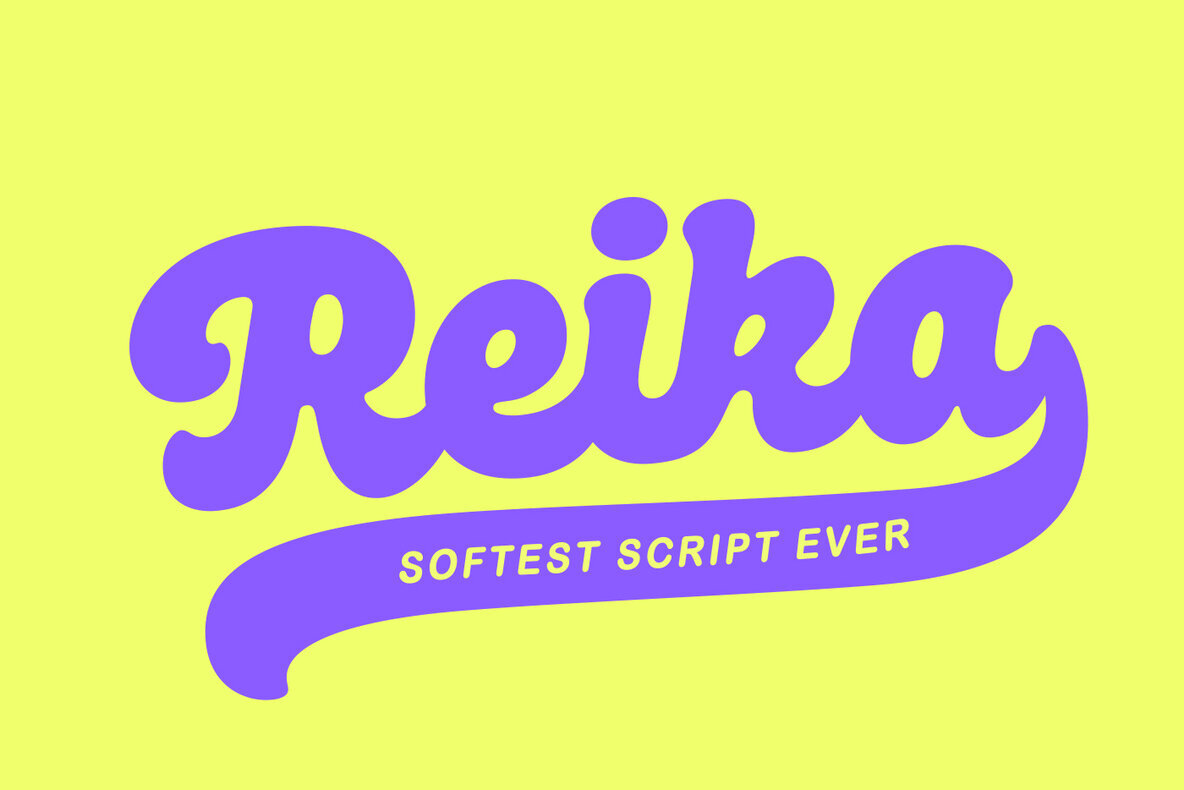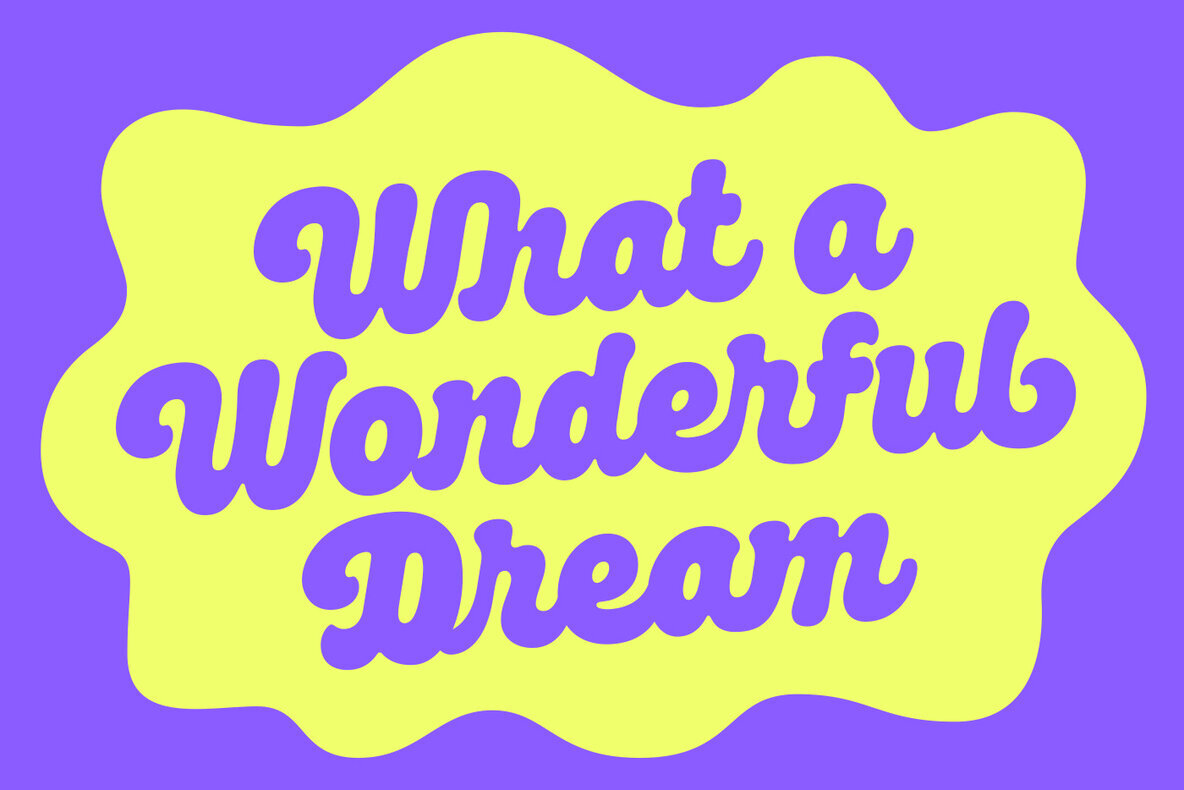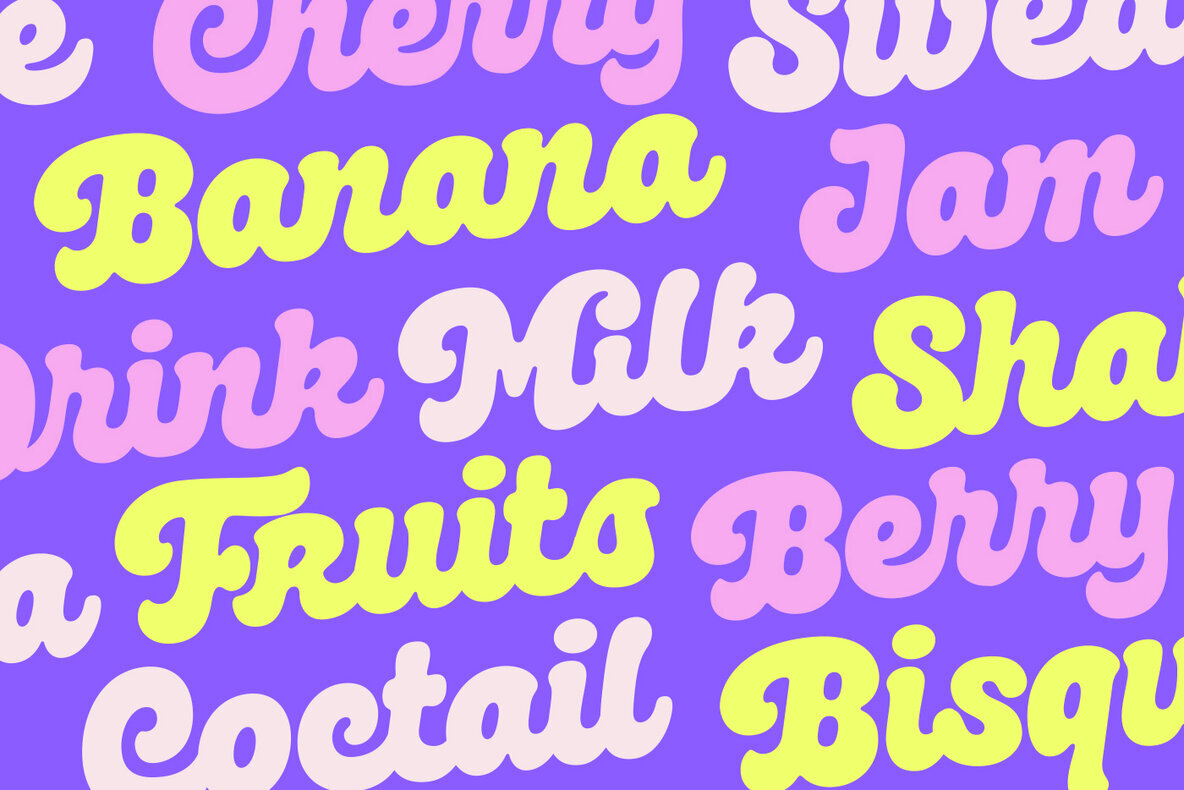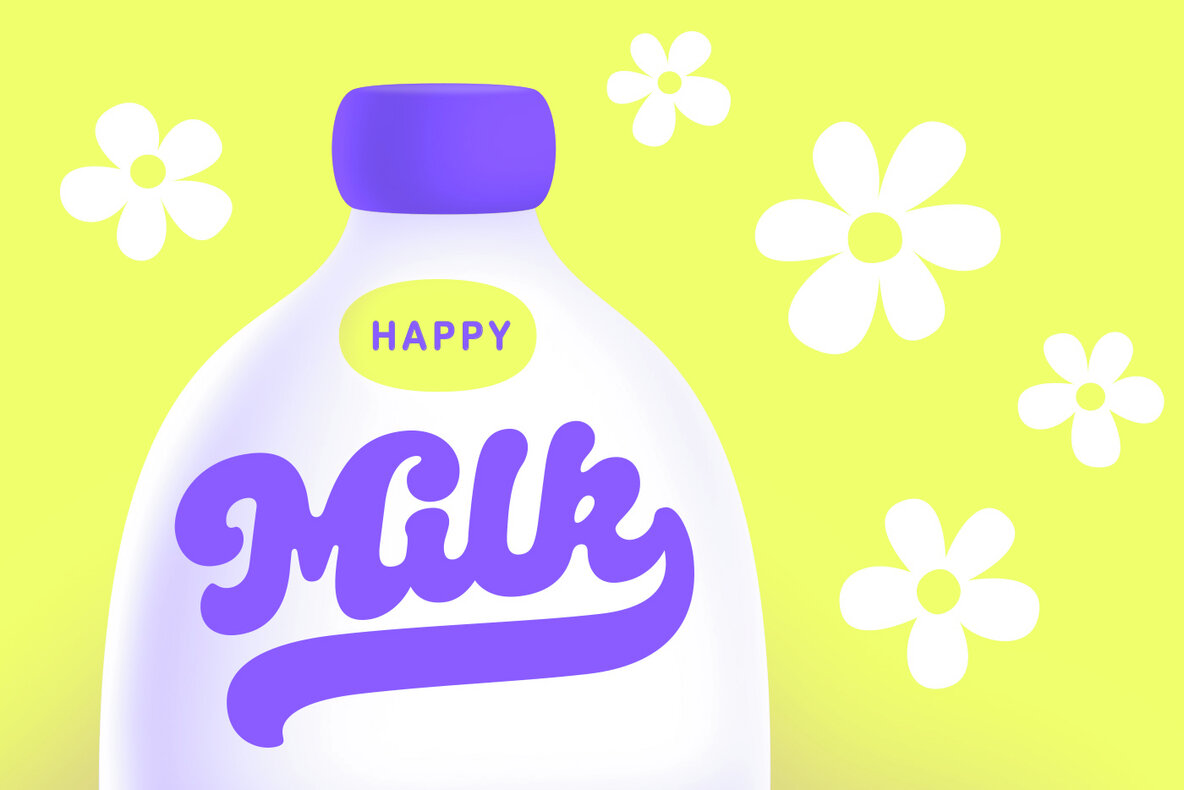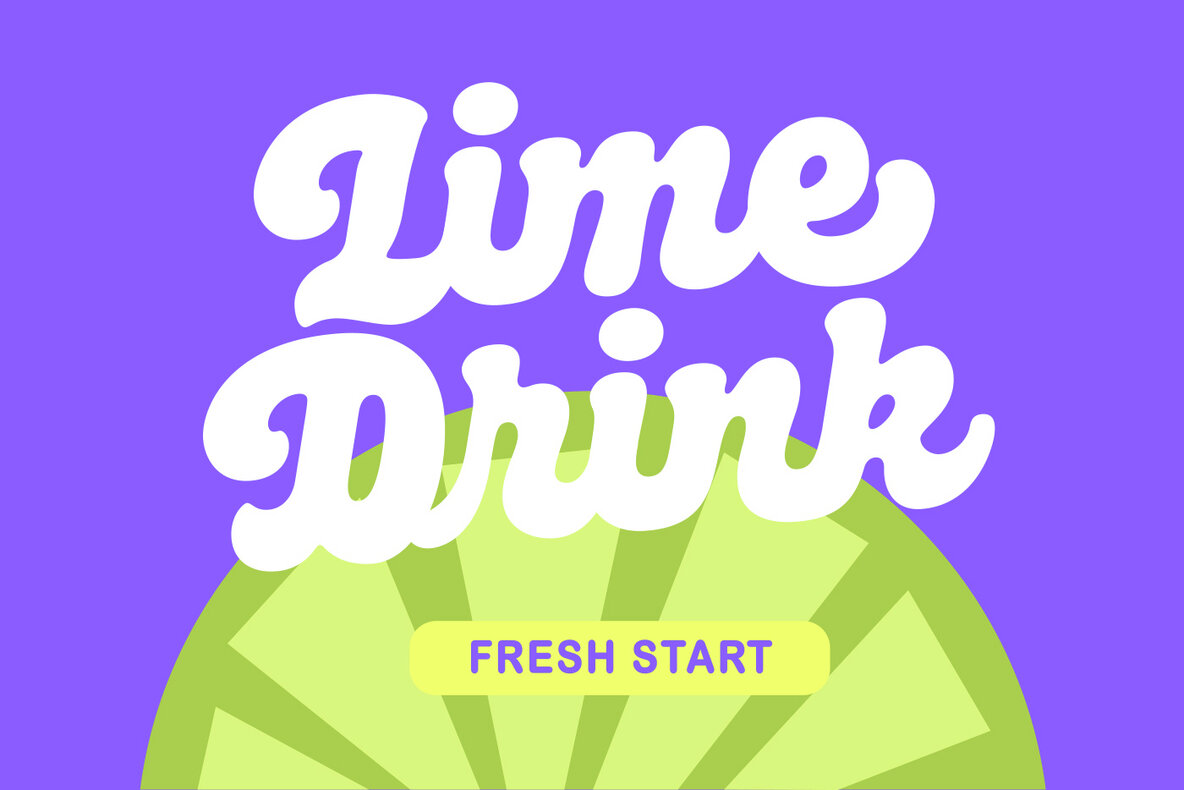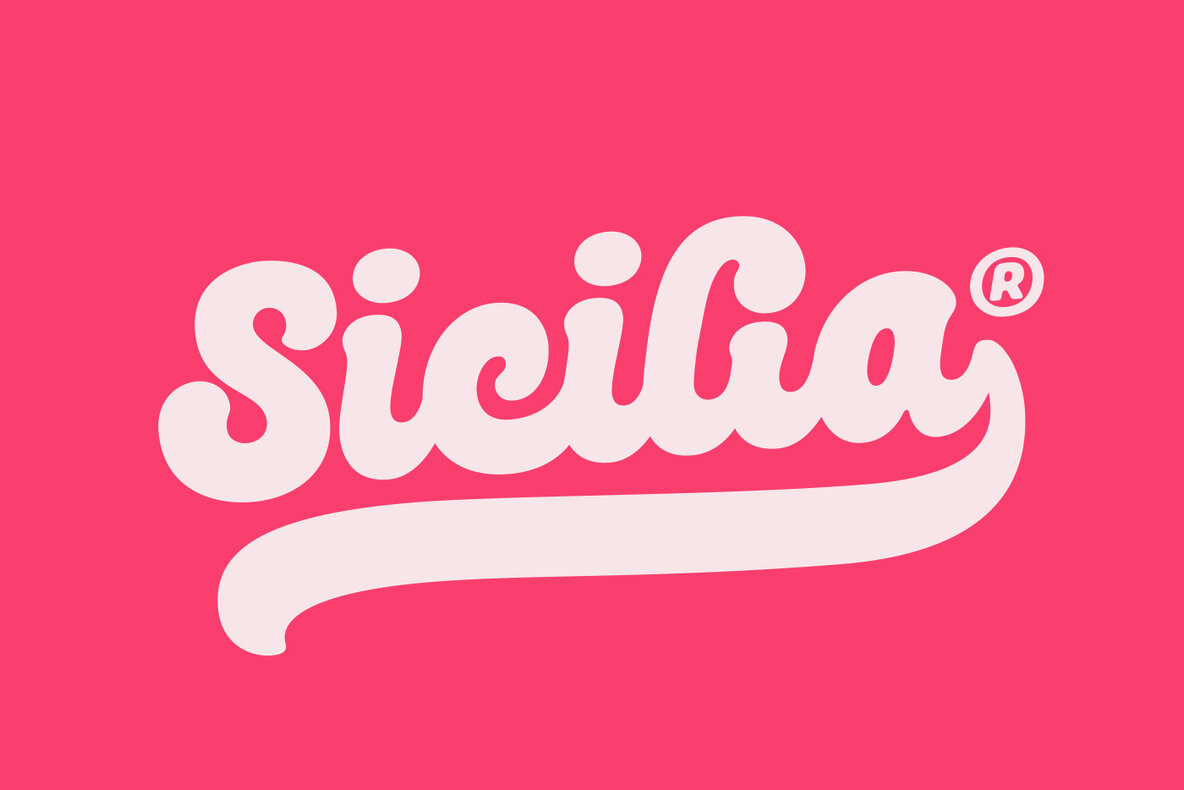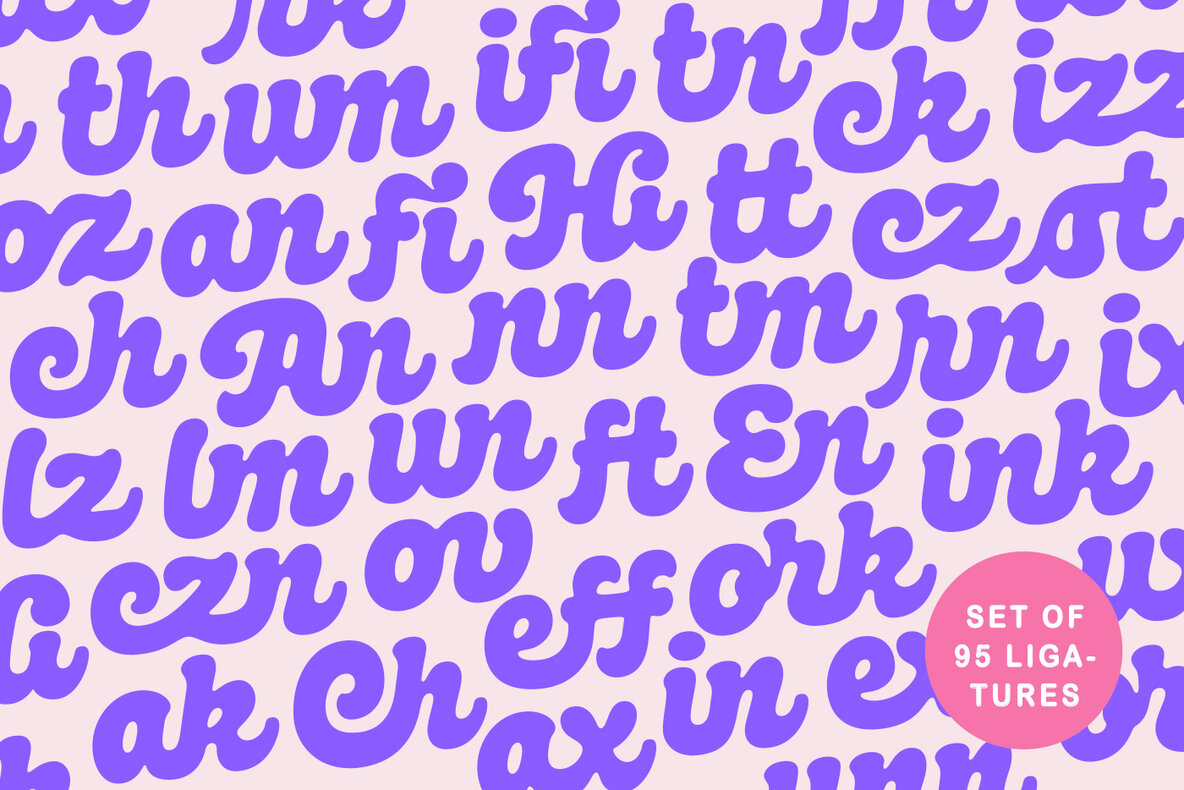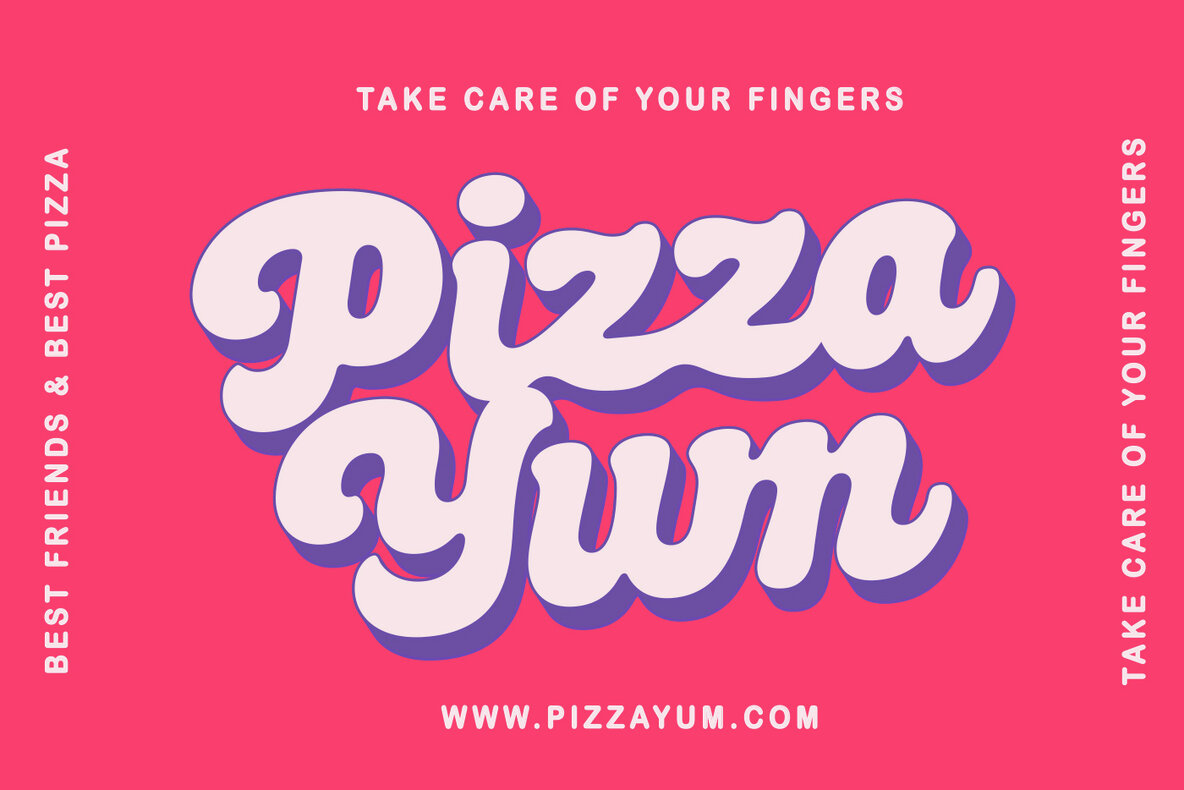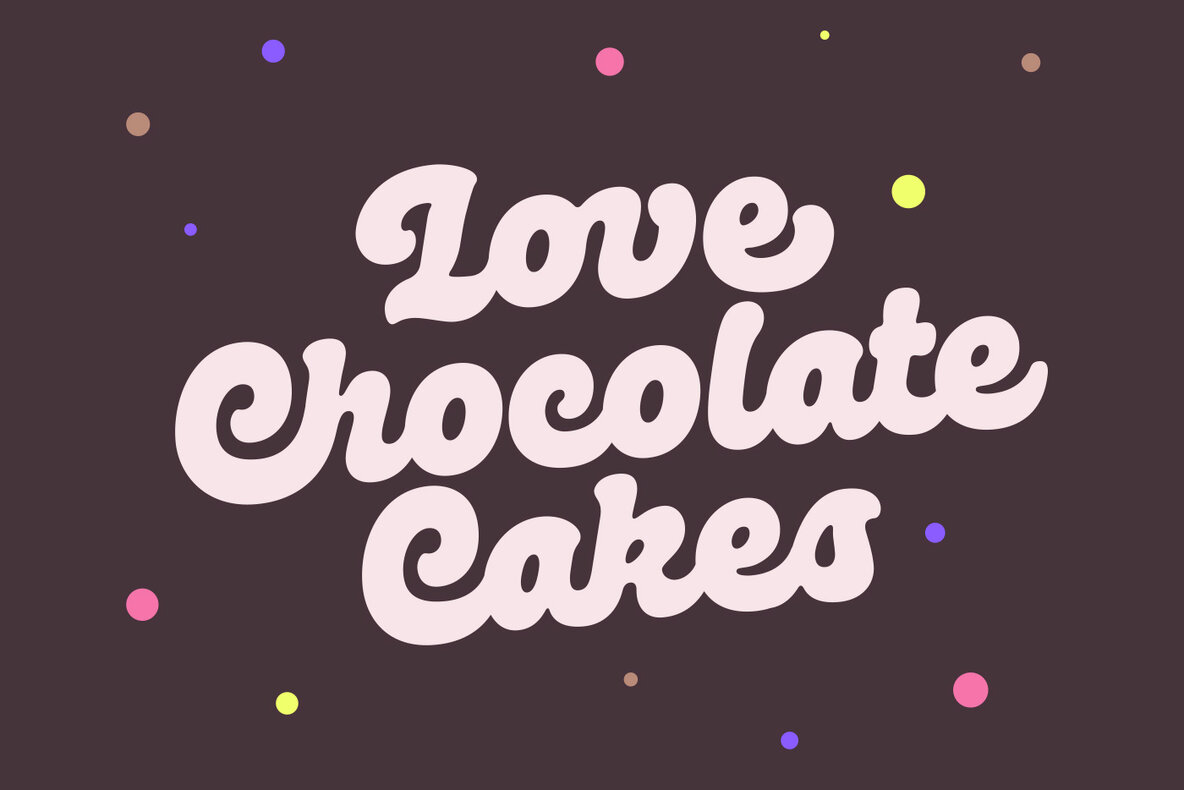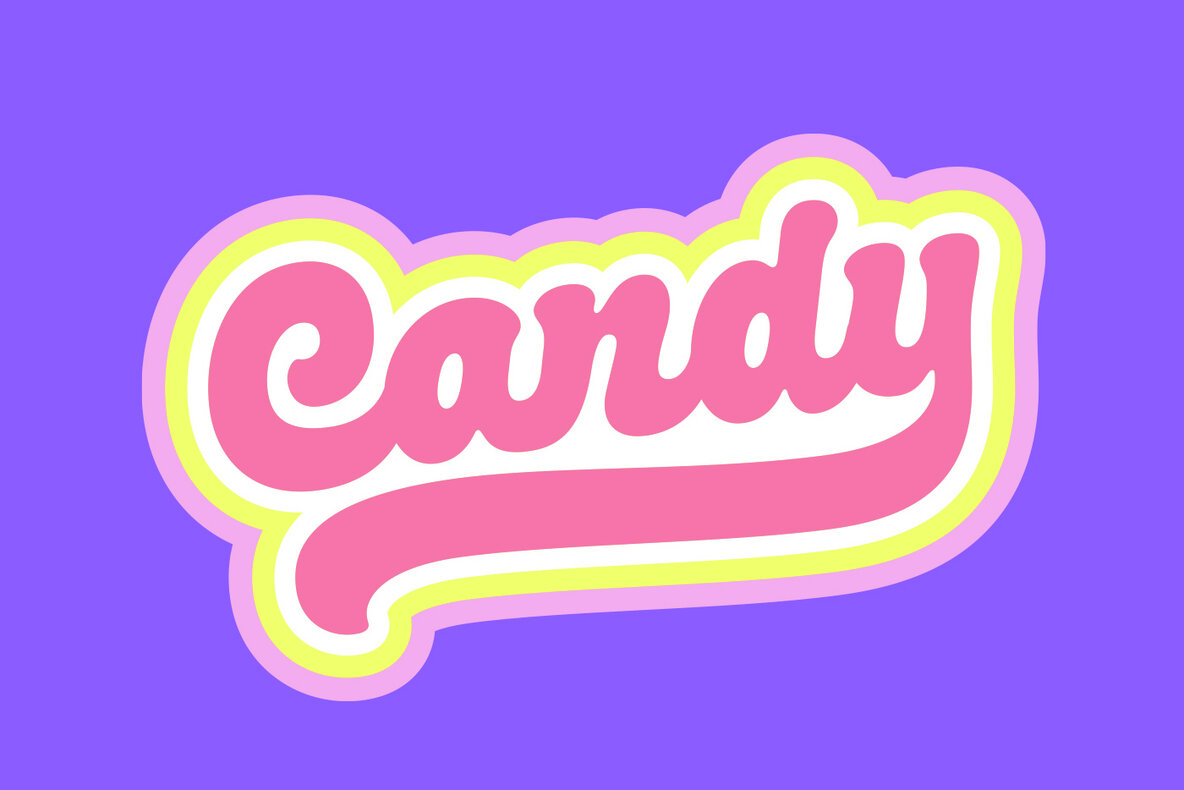
Reika Script Font
Reika Regular
Reika is a soft script font that captures the relaxed spirit of summer. Its flowing letterforms reflect the atmosphere of street food, bright gatherings, and moments of enjoyment with family and friends. This font lends a sense of warmth and informality, making it ideal for settings that call for joy and approachability. With 95 Standard Ligatures, including combinations like ak, ch, ck, and th, Reika creates a smooth, natural writing style. Stylistic Alternates offer additional variety for both uppercase and lowercase letters, while 12 distinct end-swashes allow for personalized flourishes. This functionality gives designers versatility for branding, packaging, and cheerful graphics, especially within the food industry and for products aimed at children or family audiences. Detailed usage instructions are included with the font. Reika pairs a lively tone with practical features for modern branding projects.Reika: Playful Script Font With Cheerful Ligatures